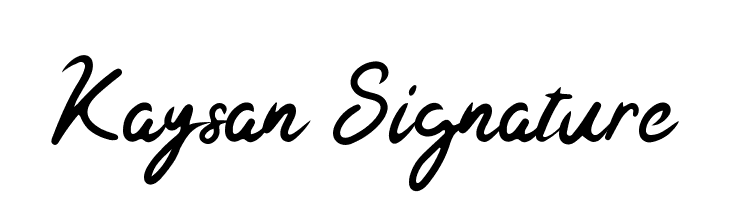
A playful, handwritten font with a slight slant and consistent stroke width.
A playful, handwritten italic font with a comic book style.
A playful, cartoonish font with bubbly, creature-like characters.
A decorative and playful font with intricate, swirling patterns.
A tall, narrow font with a modern and sleek design.
A bold, adventurous font with claw-like extensions for a wild look.
A bold, geometric font with a futuristic and dynamic style.
A cursive, handwritten-style font with elegant, flowing characters.
A playful, rounded font with a bold and friendly appearance.
A bold, rounded, and playful font with a friendly and whimsical style.
A playful, rounded font with a bold and friendly appearance.
A bold, modern font with strong strokes and a vintage touch.
A bold and dynamic script font with dramatic curves and angles.
A bold, dynamic script font with sweeping curves and pronounced strokes.
A dynamic and flowing script font with elegant curves and smooth connections.
A dynamic script font with elegant curves and artistic flair.
A dynamic cursive script with bold, sweeping strokes and elegant flourishes.
A bold, 3D italic font with a playful, cartoon-like style.
A bold, modern sans-serif font with clean lines and geometric shapes.
A playful, hand-drawn font with a whimsical and informal style.
A decorative font with bold, swirling patterns enclosed in square frames.
An ornate, decorative font with bold characters enclosed in swirling frames.
A decorative font with swirling embellishments and bold, high-contrast strokes.
A playful and dynamic script font with fluid, slanted letterforms.
A bold, 3D italic font with a modern, dynamic style.
A bold, 3D italic font with a futuristic and dynamic style.
A bold, angular 3D font with a futuristic and striking appearance.
A bold, condensed font with a modern and geometric style.
A bold, condensed italic font with high contrast and dynamic style.
A bold, angular font with an expanded width and vintage appeal.
A bold, expanded, and italicized font with a modern, edgy style.
A modern, italicized font with a gradient effect and striped pattern for a dynamic look.